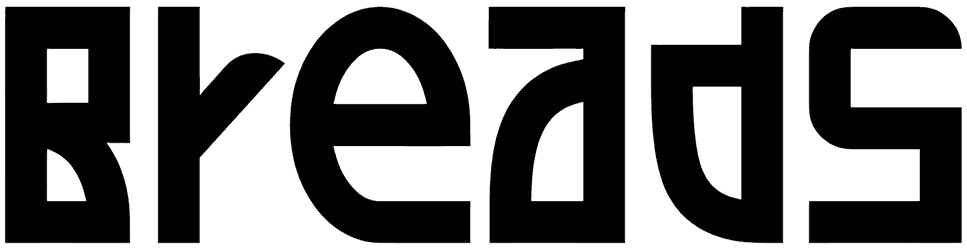
Breads Font
With the Breads font, you can give your digital artwork a cool geometric feel while still maintaining a fancy air. This Art Deco font, with its squarish characters, is preferred for use in commercials, flyers, fashion, and clothing because of the eye-catching design it creates. If you like a challenge, the result will blow your client’s mind, so give this techno font a shot.
Breads is a strong and sporty bold themed display font for sports, gym and e-sports.
Breads are perfect for posters, t-shirts, book covers, packaging, stickers, quotes and all designs that require thick elements, clearly strong, sporty and elegant.